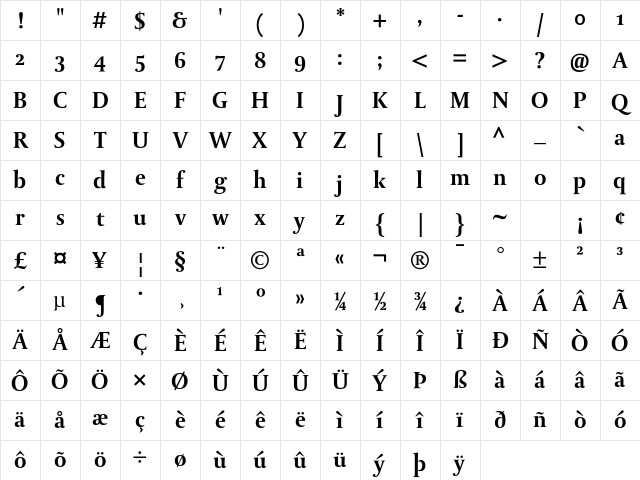
DTL Paradox ST Bold
Style: ST Bold
Complete DTL Paradox ST Bold glyph index. Displaying only characters natively supported by DTL Paradox ST Bold font.
Design Context for DTL Paradox
DTL Paradox is a composed and adaptable typeface that performs quietly and consistently across a wide range of design contexts. Its bold stroke weight gives it real presence on the page.
Who designed the DTL Paradox ST Bold font?